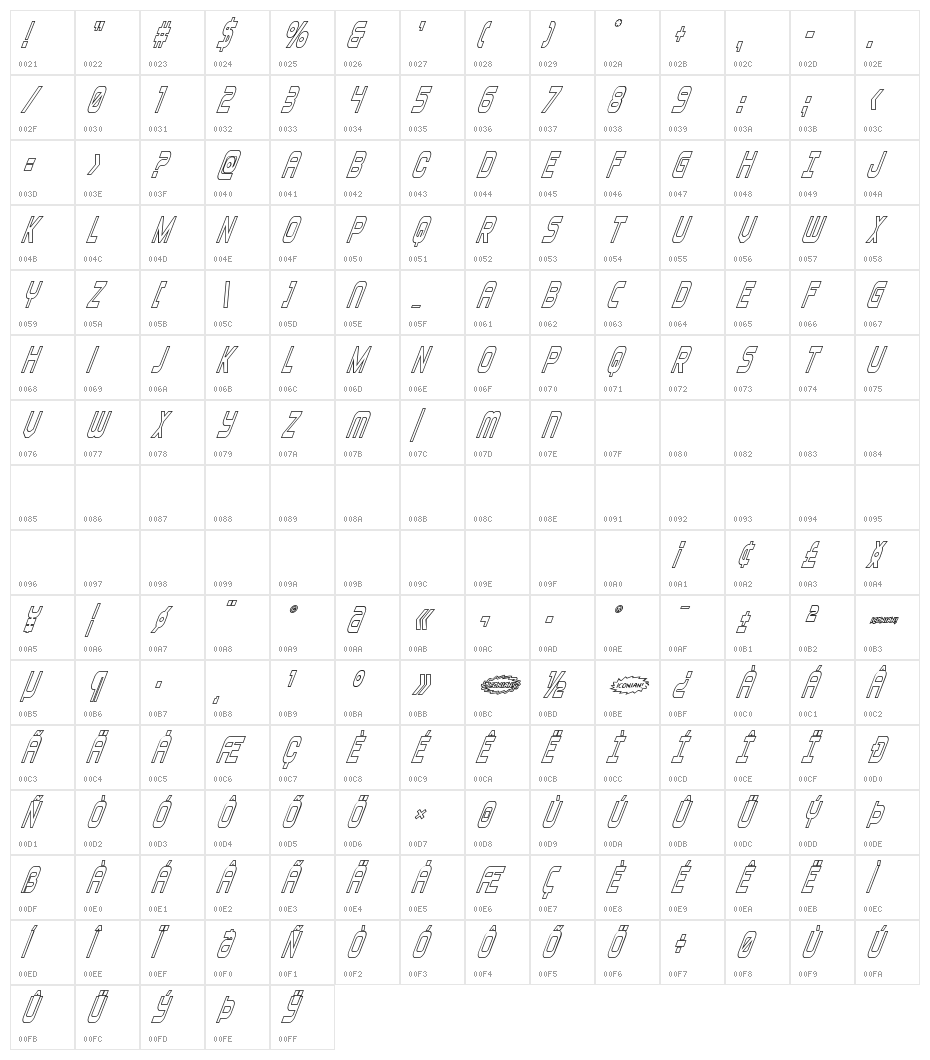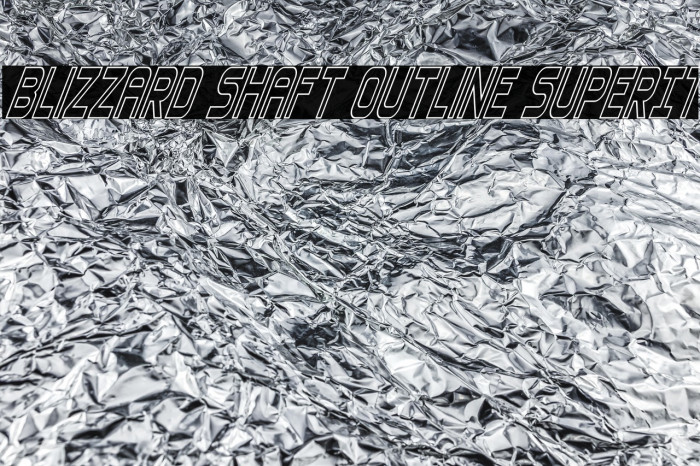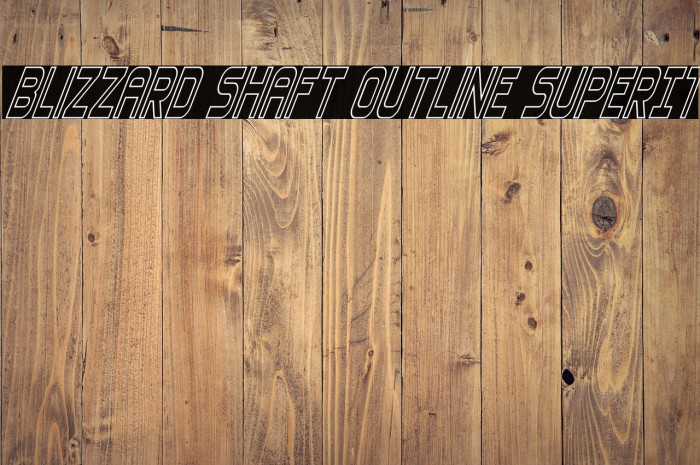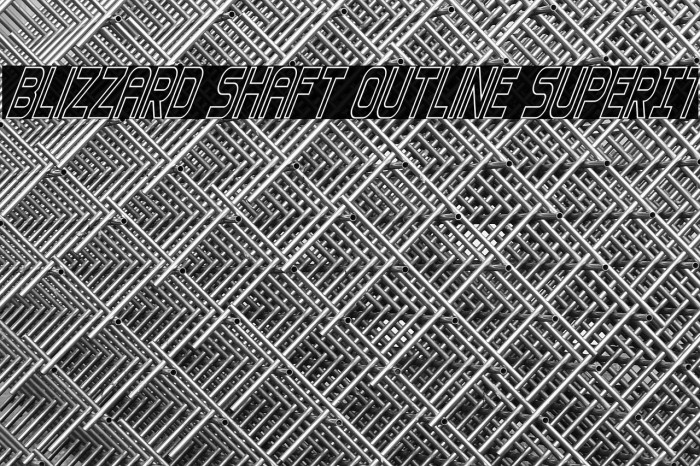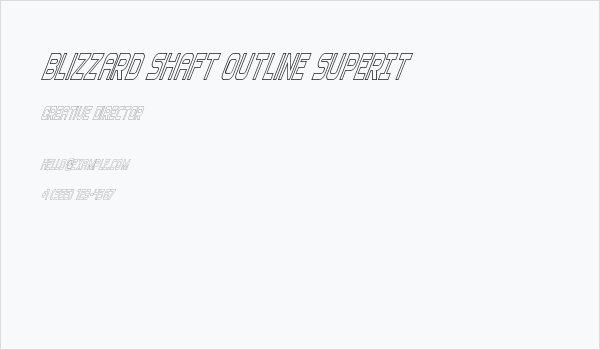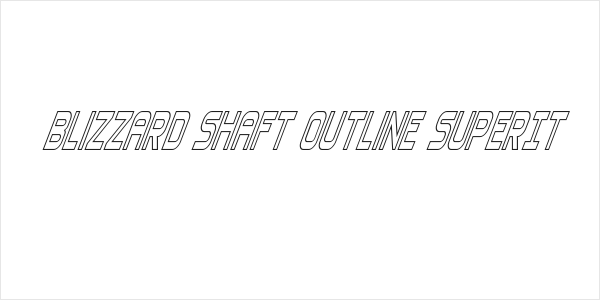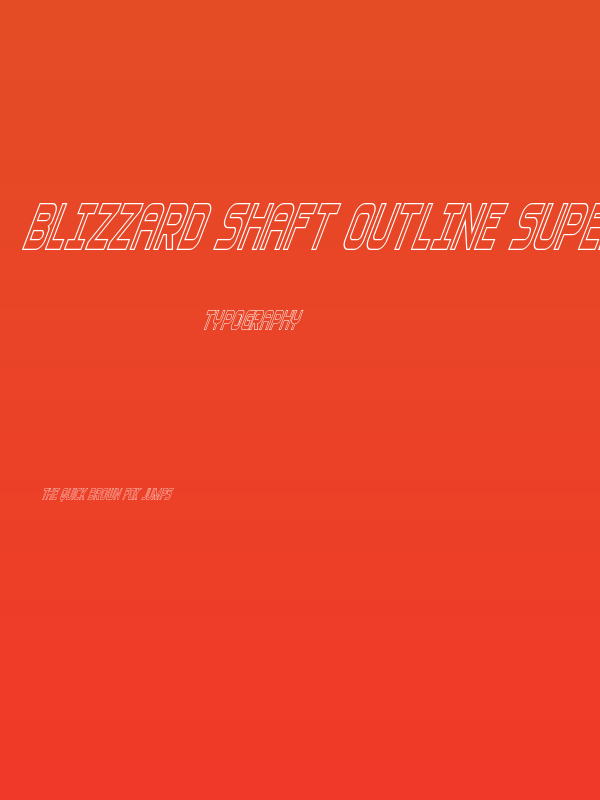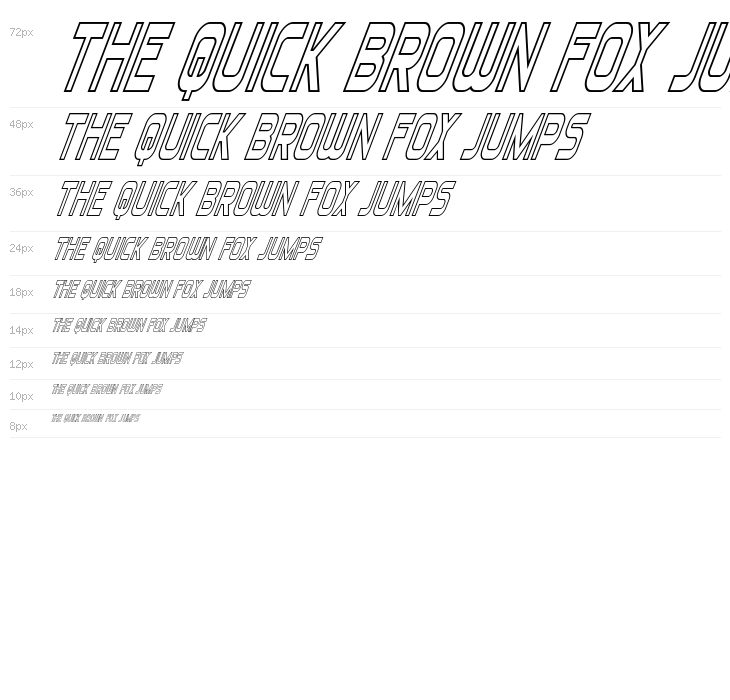
Blizzard Shaft Outline SuperIt Font
Blizzard Shaft Outline SuperIt Description
This font features a dynamic and bold outline style, characterized by its sharp, angular edges and a distinct slant that gives it a sense of motion and energy. The uppercase and lowercase letters maintain a consistent geometric form, with a uniform stroke width that enhances its modern appeal. The numbers and special characters follow the same design principles, ensuring a cohesive look across all elements. Its outline nature makes it ideal for creating striking visual impact, suitable for both digital and print media.